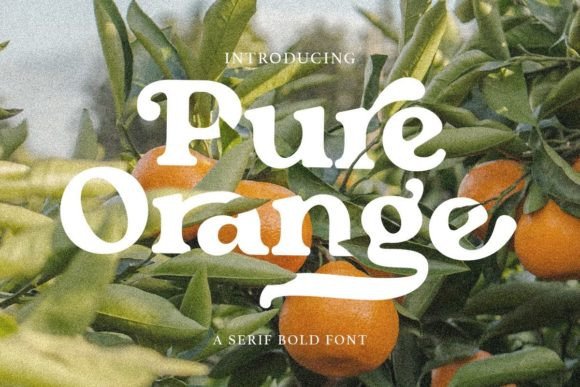
Introducing Pure Orange, the font that breathes new life into your creative endeavors, transforming words into captivating visual experiences. Step into a world of sophistication and style, where your designs take center stage, leaving a lasting impression on all who behold them.
Pure Orange, a meticulously crafted serif font, beckons you to explore a world of boundless creativity. Its bold strokes and retro charm infuse your projects with a timeless elegance that effortlessly commands attention. Whether you're crafting stunning posters, designing logos that speak volumes, or creating wedding invitations that capture the essence of romance, Pure Orange is your trusted companion.
With its versatility and wide range of applications, Pure Orange effortlessly adapts to your creative vision. Transport yourself to the golden age of design, where every letter carries the weight of history and the promise of a captivating story. Whether you're a seasoned designer or just starting your creative journey, Pure Orange is the font that empowers you to make a statement.
Embrace the allure of Pure Orange and unlock the potential of your designs. Let your imagination run wild as you create posters that ignite conversations, logotypes that leave an unforgettable mark, and quotes that resonate with your audience. Experience the joy of crafting wedding invitations that capture the essence of your special day, leaving your guests in awe.
Pure Orange is more than just a font; it's a gateway to a world of creative possibilities. Elevate your projects to new heights, let your ideas shine brighter than ever before, and captivate your audience with every stroke. Pure Orange awaits you; seize the moment and let your creativity bloom.